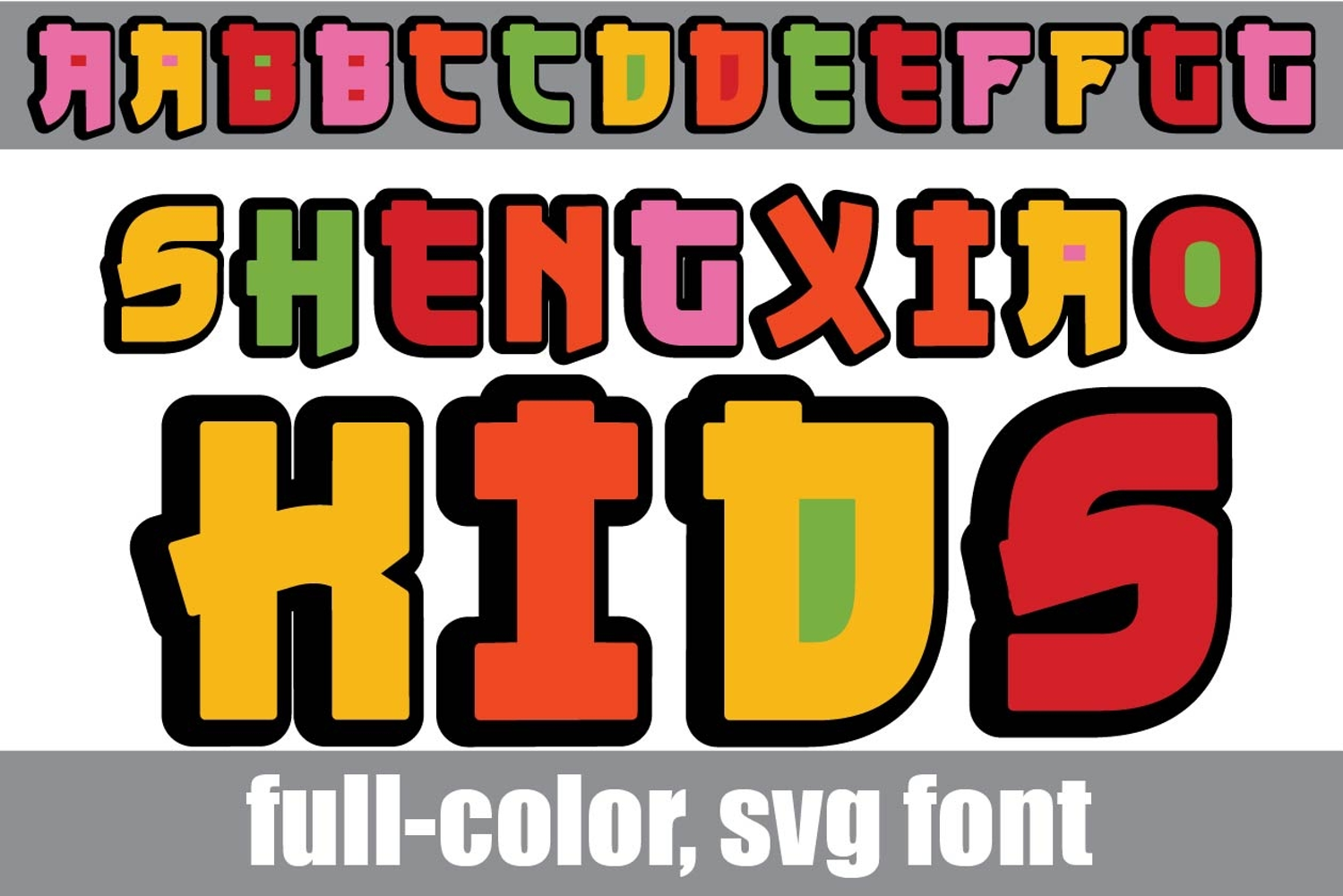
Shengxio Kids Color Font
This full-color, rainbow-colored font has an Eastern Asian feel. There is an alt case of additional colors of each letter that you can access through your system's character map.